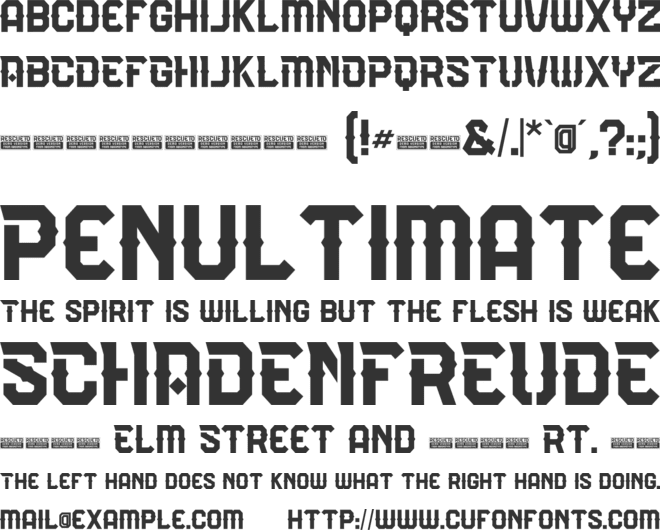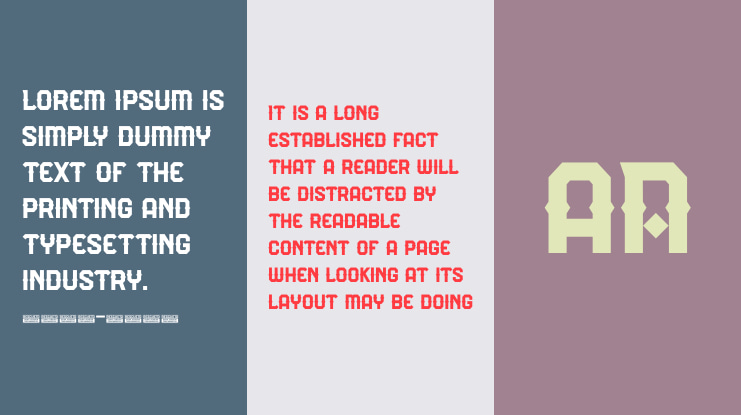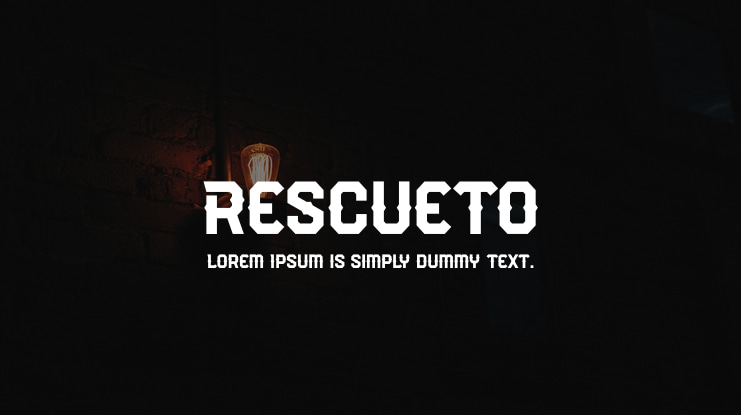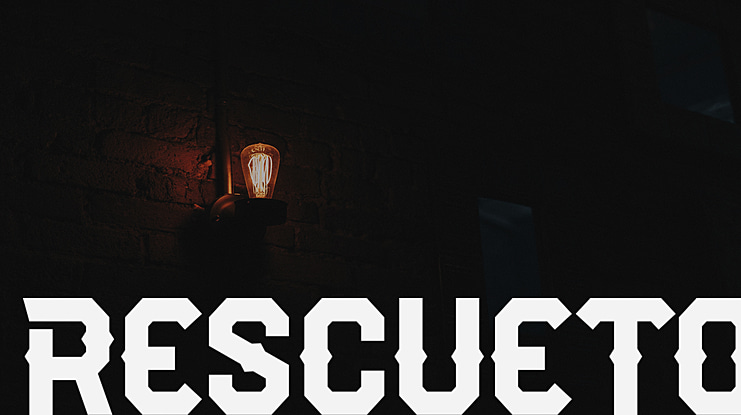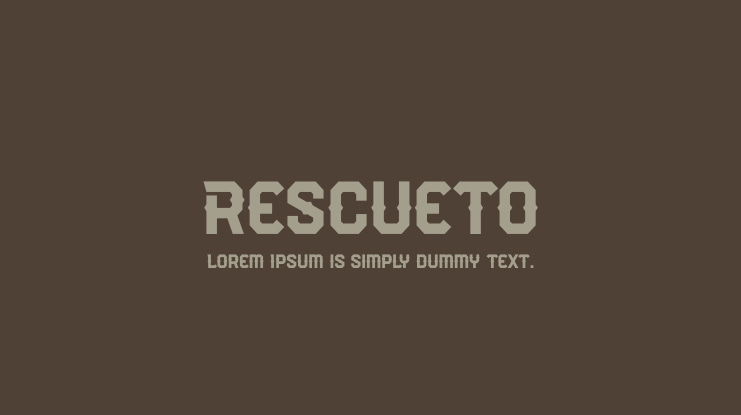
Rescueto Font Family
Sarwo Edhi Prayitno
This font is the sporty sans serif style with all caps but different looks and feel nice balanced. Provide ligatures font in uppercase variant style make the design letter looks nice. Honestly it works perfectly for headlines, logos, posters, packaging, T-shirts and much more.